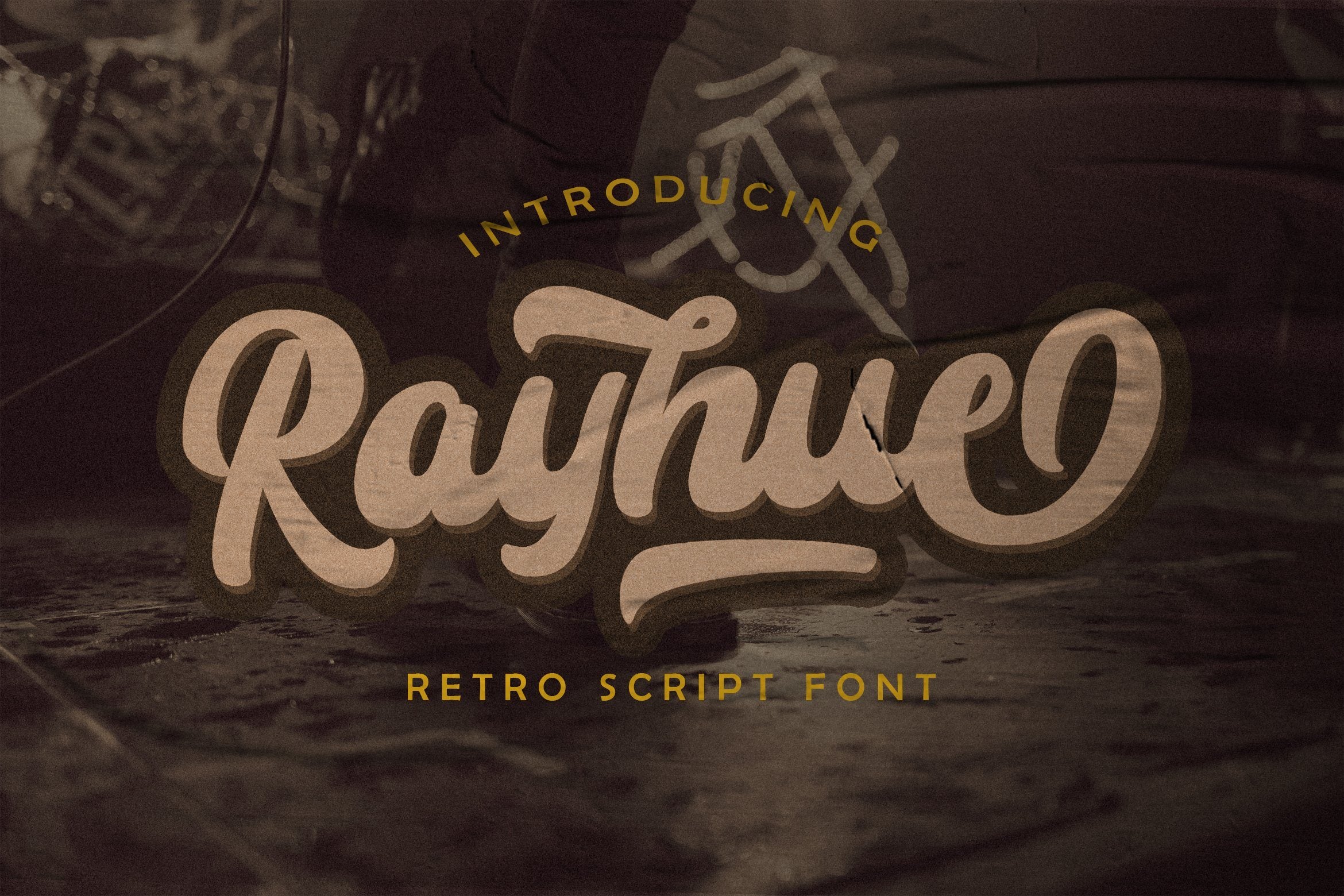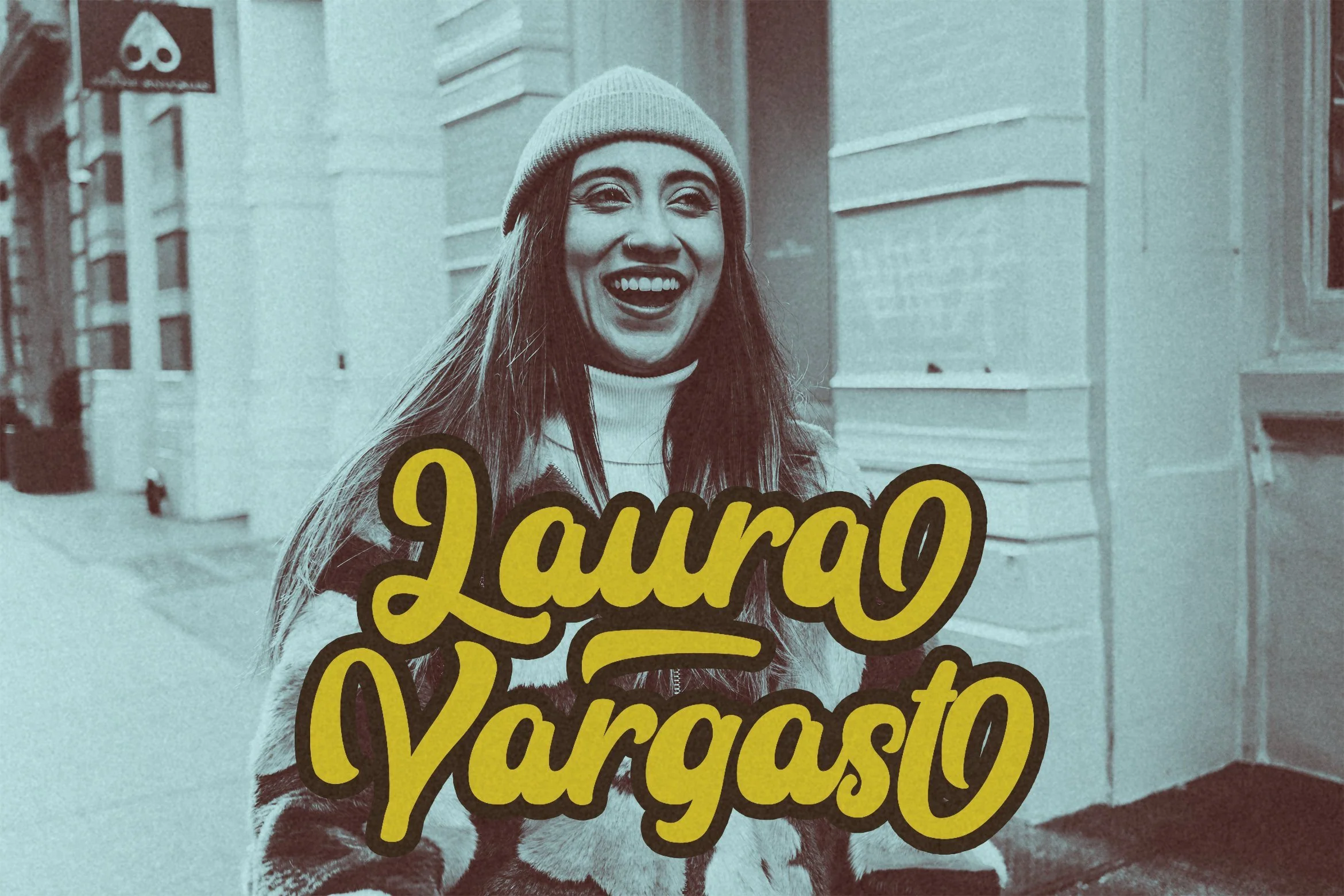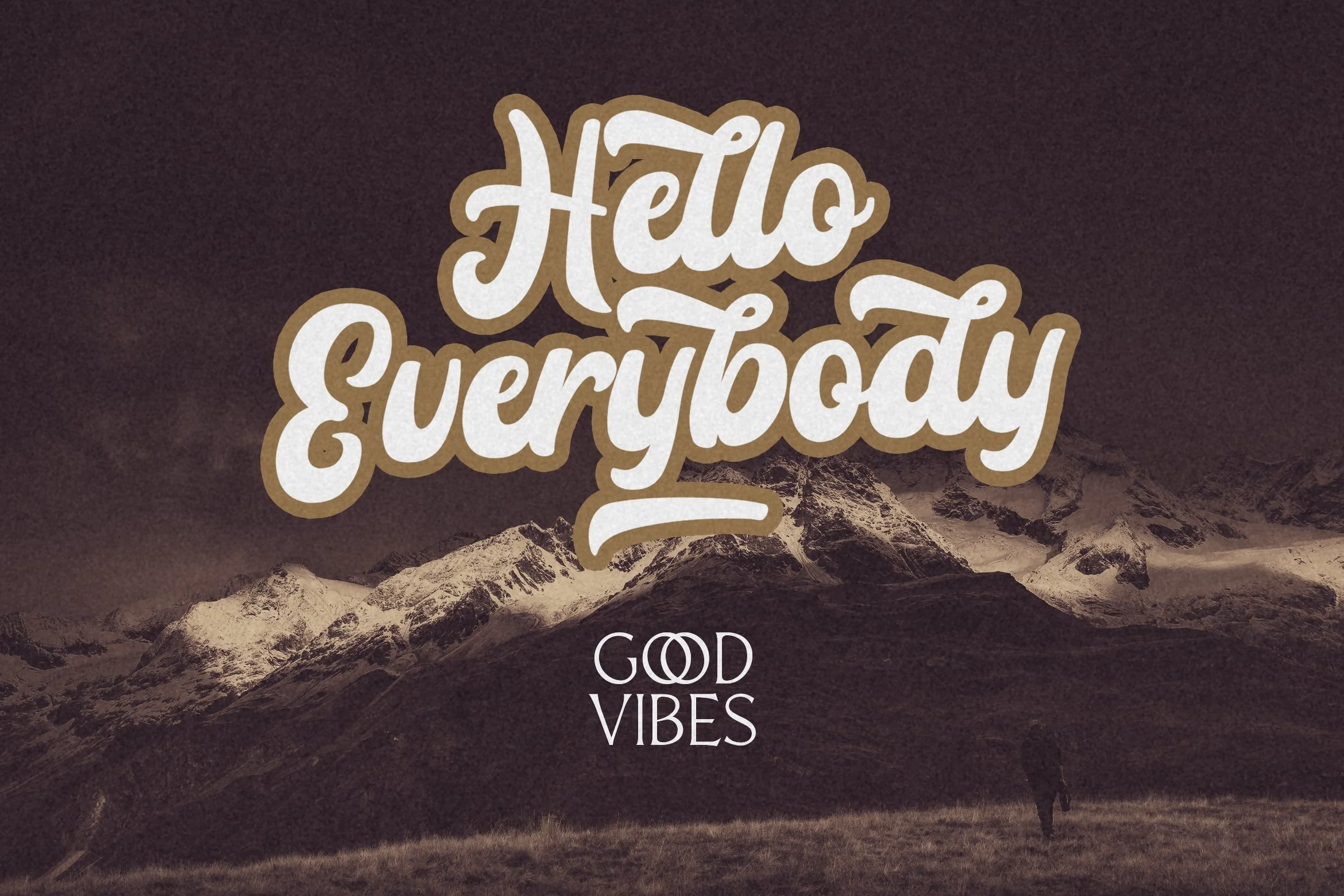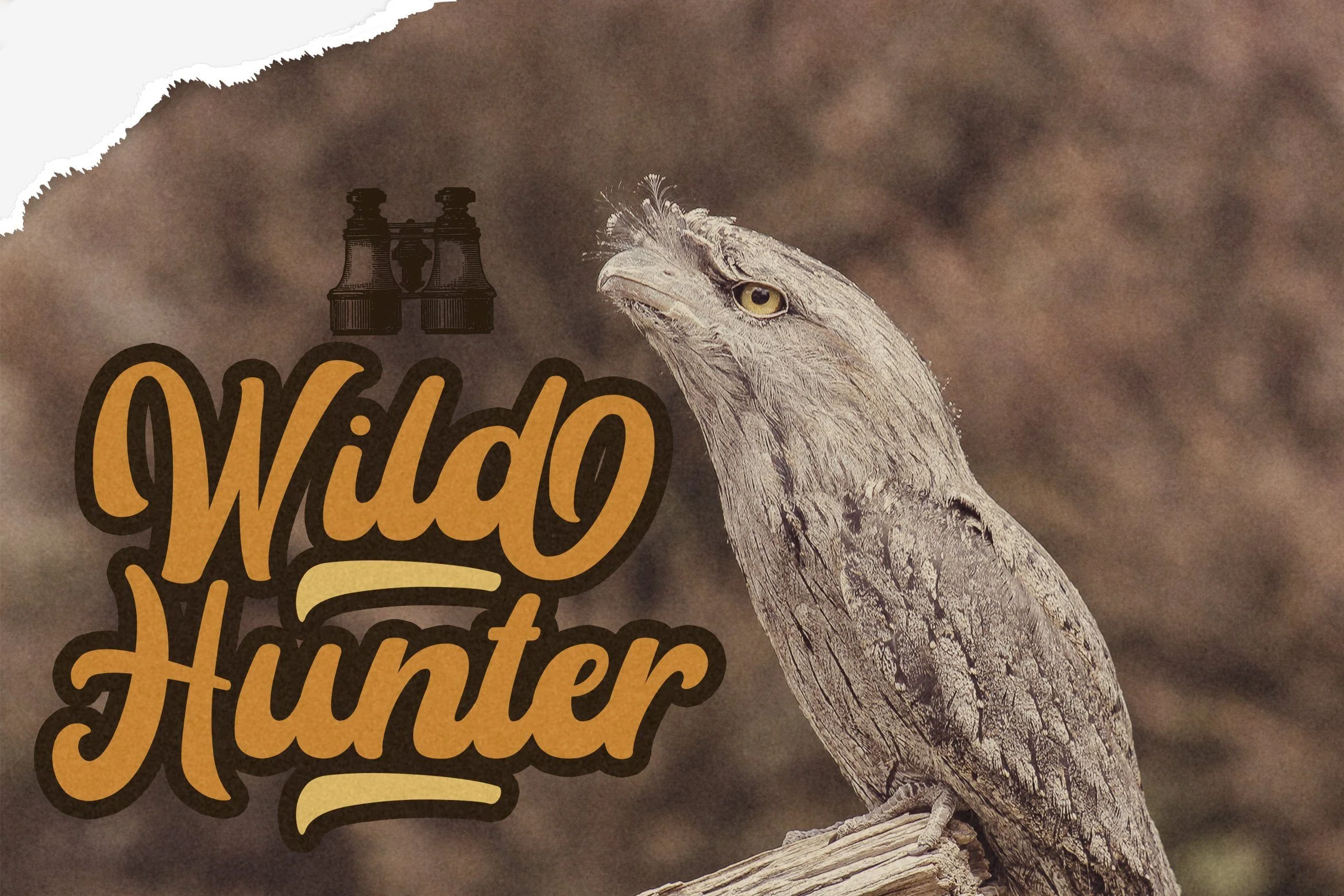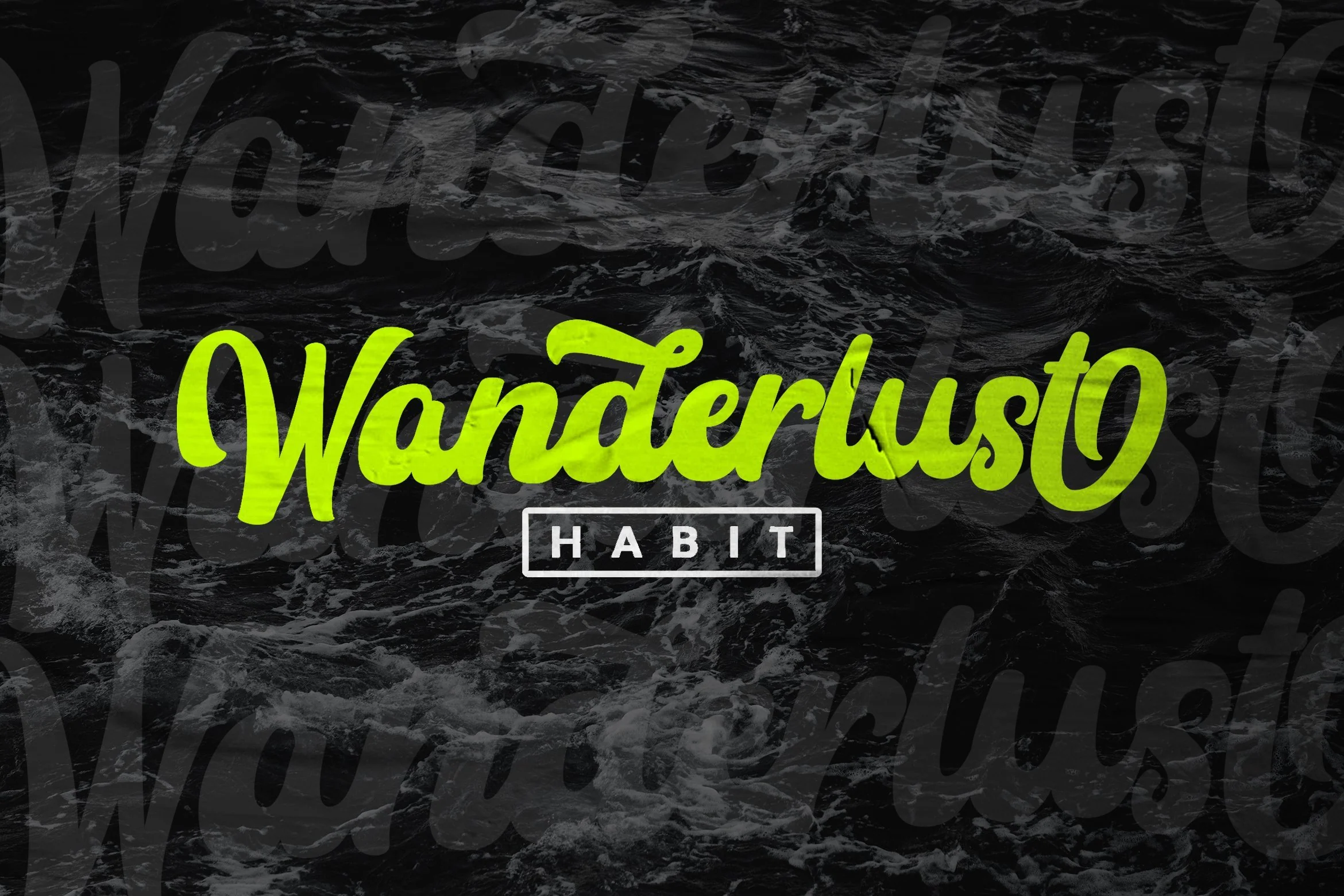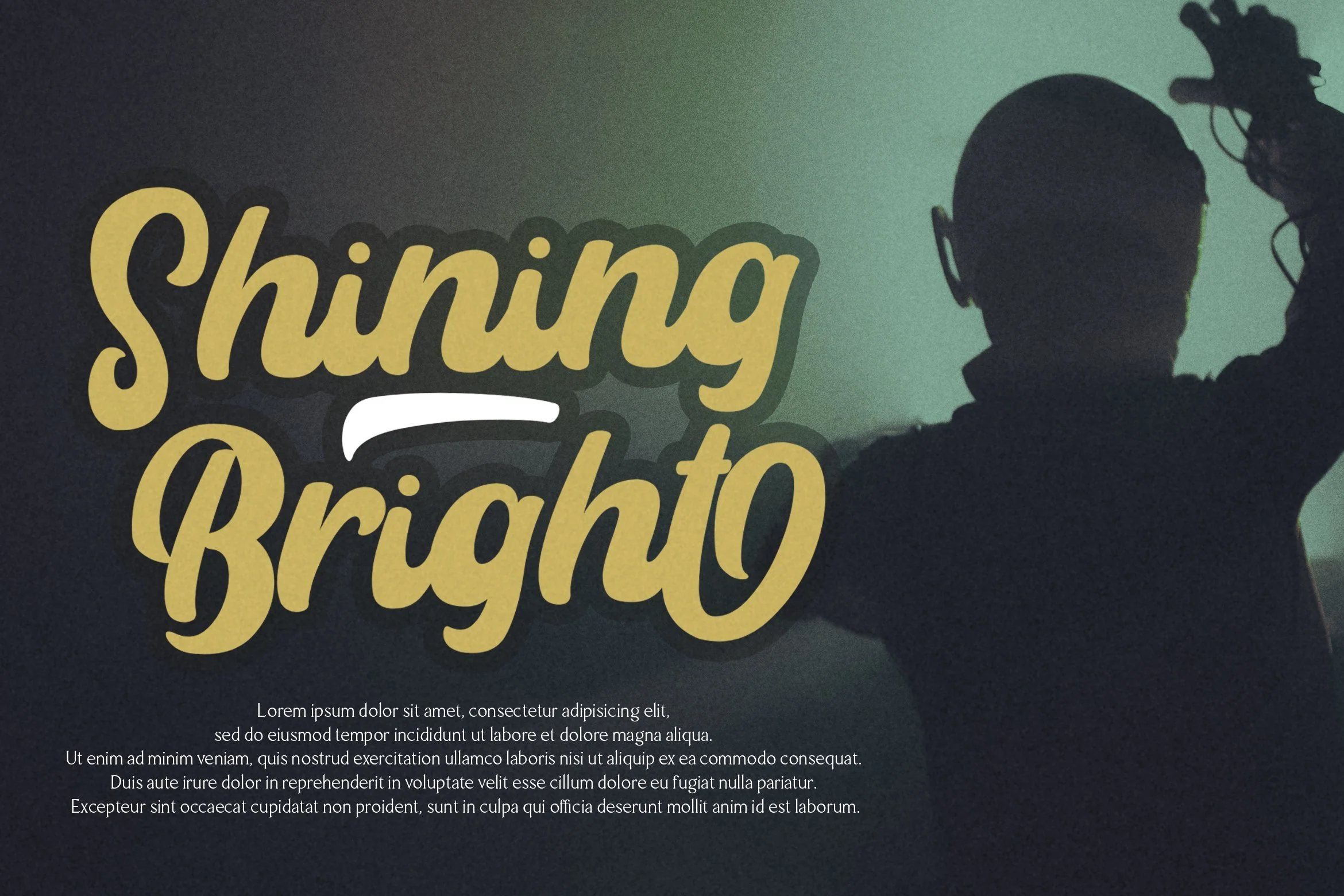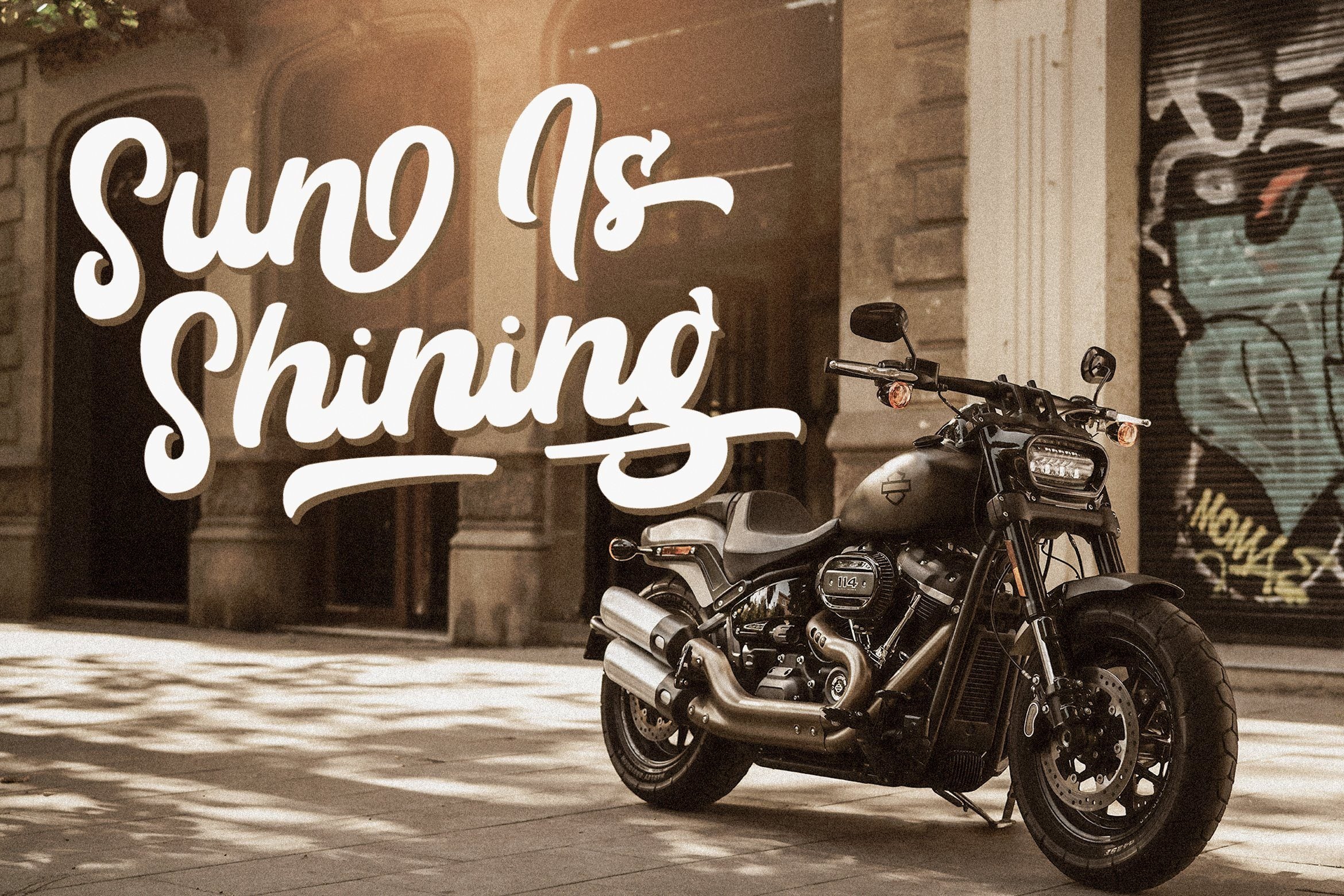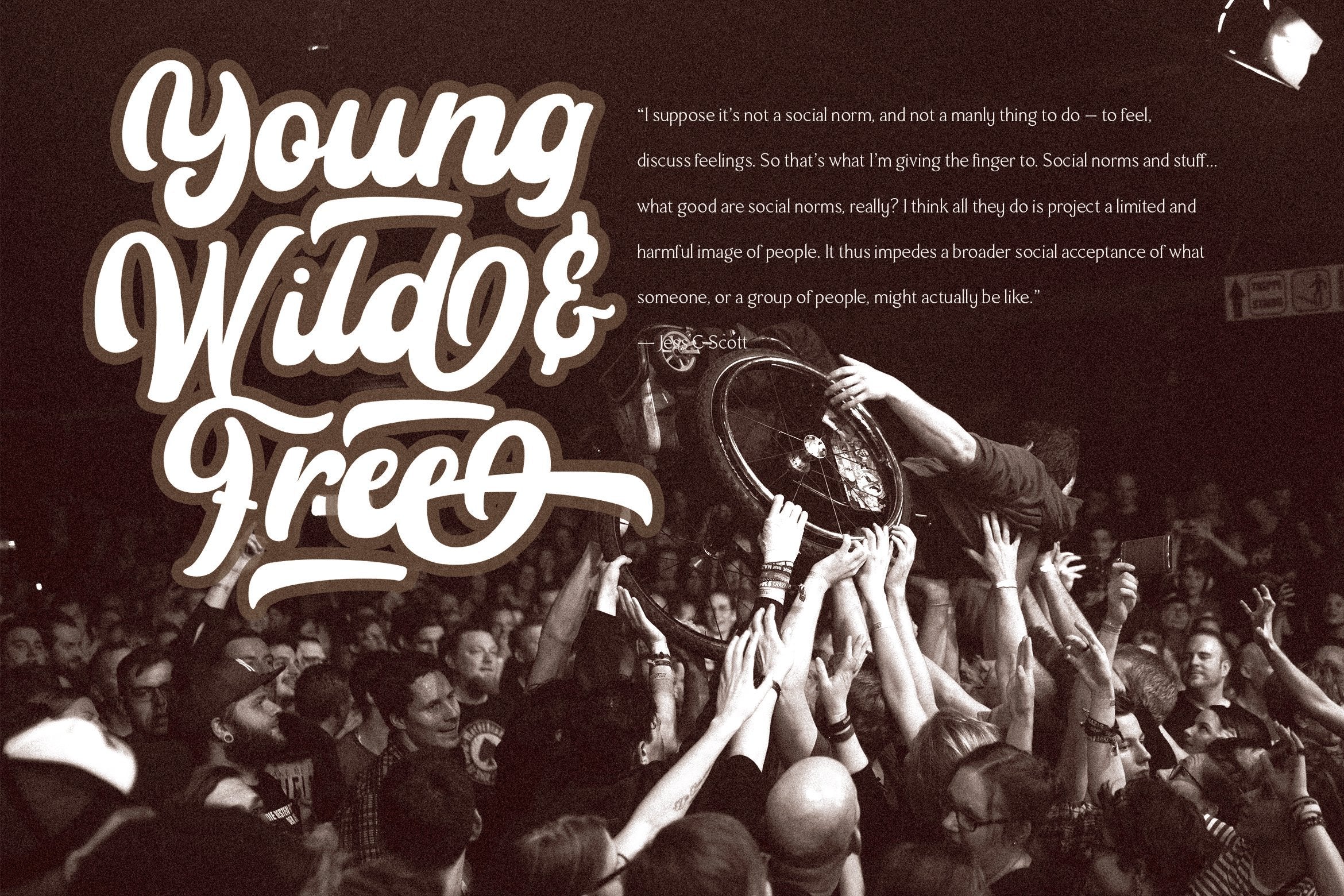
Rayhue - Retro Bold Script Font
Introducing Rayhue - Retro Bold Script Font
Rayhue is a Retro bold script with Vintage style. unique design taste and combine with classic retro style of the 80s, trendy, vintage, and sporty. Rayhue is perfect for retro lovers, besides this font is also perfect if used for brands such as: barbershop, motorcycle club, clothing, coffee shop, shoe brands, vapor shop, hipster and many more.
This Font Template contains Classy, Elegant, Creative, Cool and has a Unique Concept.
- Stylistic Alternate
- Swash
Introducing Rayhue - Retro Bold Script Font
Rayhue is a Retro bold script with Vintage style. unique design taste and combine with classic retro style of the 80s, trendy, vintage, and sporty. Rayhue is perfect for retro lovers, besides this font is also perfect if used for brands such as: barbershop, motorcycle club, clothing, coffee shop, shoe brands, vapor shop, hipster and many more.
This Font Template contains Classy, Elegant, Creative, Cool and has a Unique Concept.
- Stylistic Alternate
- Swash